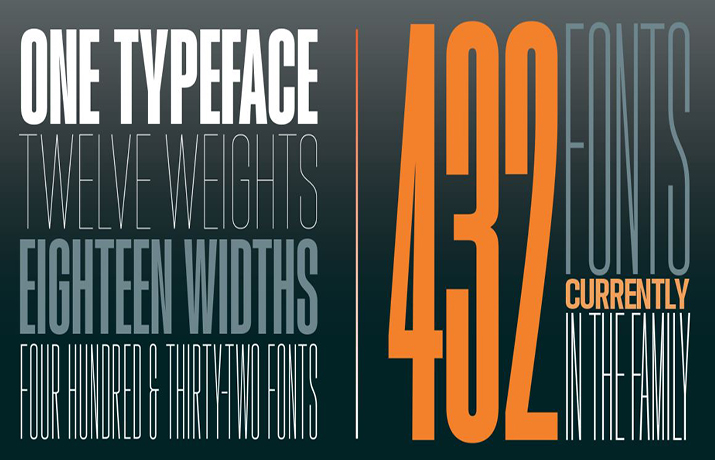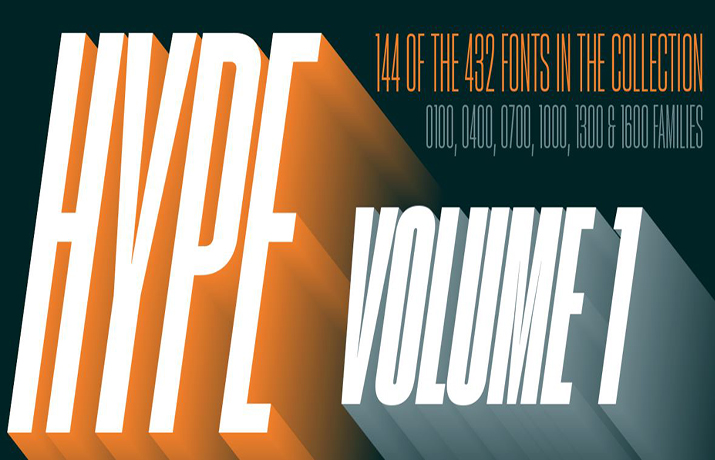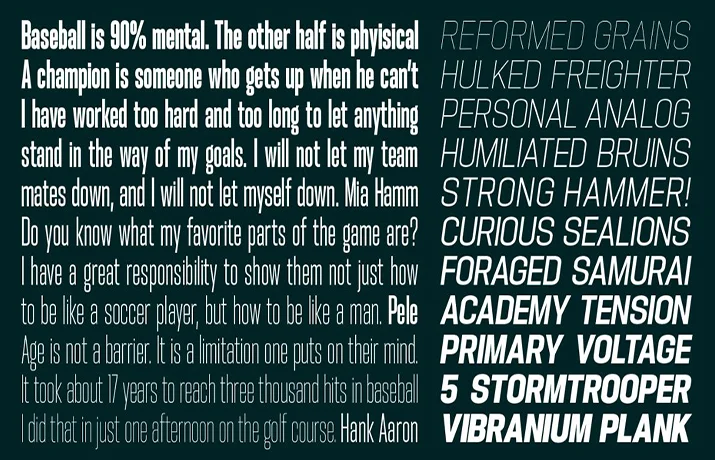
Hype Vol 1 Font is an extensive and dynamic typeface designed by Neil Summerour and published by Positype. With 144 styles to choose from, Hype Vol 1 offers a vast range of options for designers who are looking for a versatile and unique font.
One of the most notable features of Hype Vol 1 is its eclectic design. The font’s distinct blend of geometric and organic shapes creates a sense of movement and energy that is both striking and eye-catching.
This makes it ideal for use in a variety of design projects, from branding and advertising to editorial design and packaging.
With so many styles to choose from, designers can easily find the perfect variant for their specific project needs.
Hype Vol 1 is a dynamic and versatile font that is sure to make a statement in any design project.
Apart from advanced features, it can be used for various design purposes. Such as logos, branding, headlines, book covers, bold headings, watermarks, taglines, comics, movie posters, titles, headers, product packaging, and even card printing.
Whether they need a bold and impactful headline font or a more subtle and refined option for body text, Hype Vol 1 offers a wide range of styles and weights to choose from.